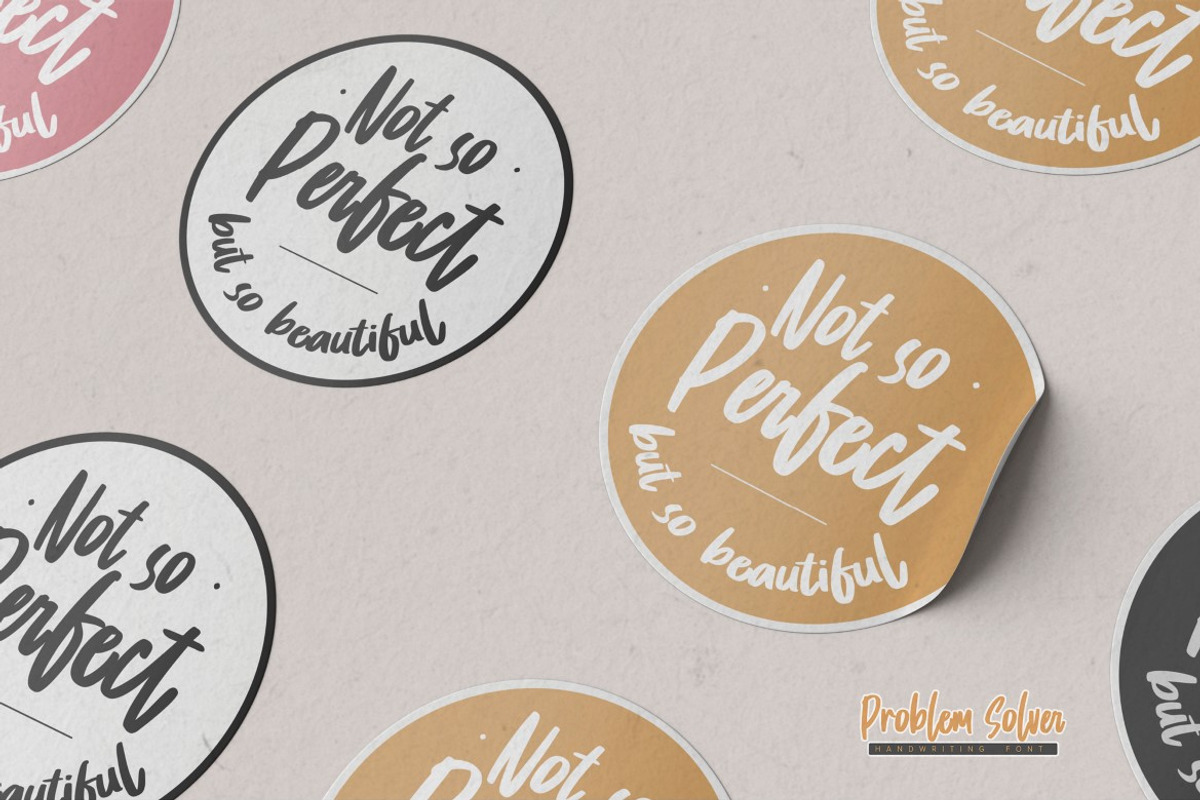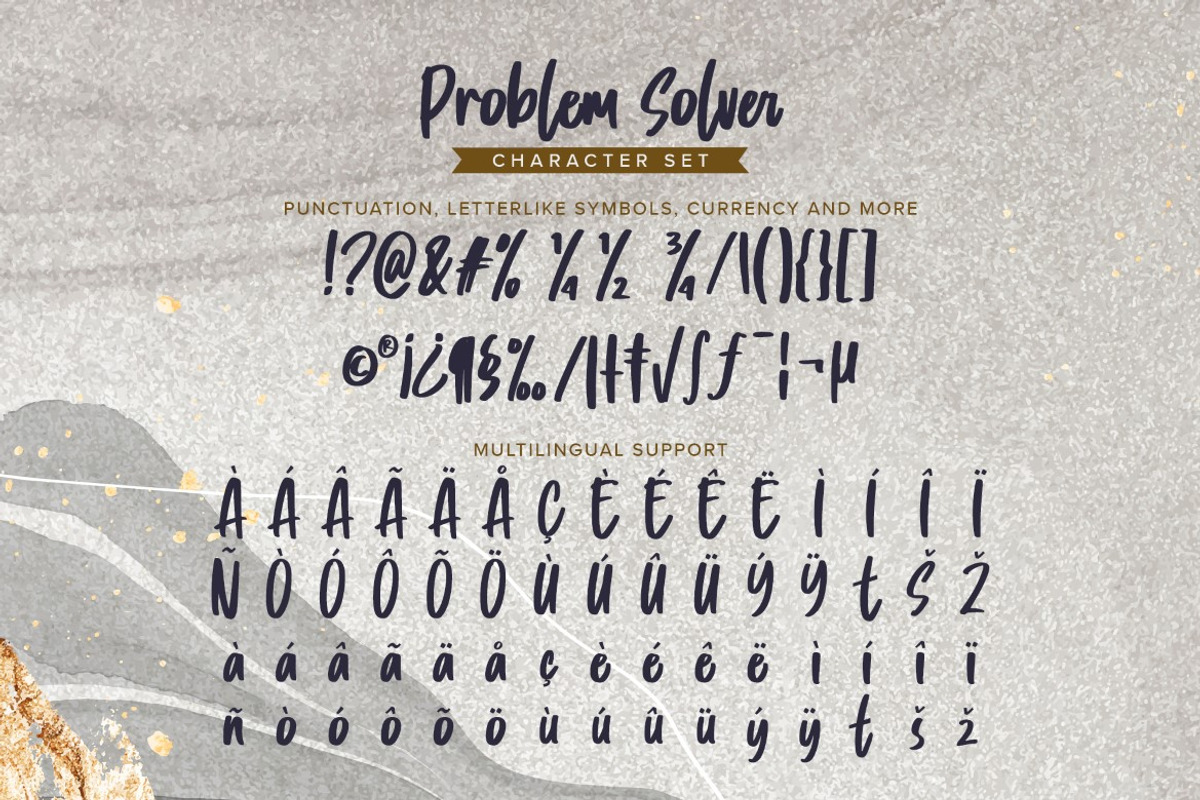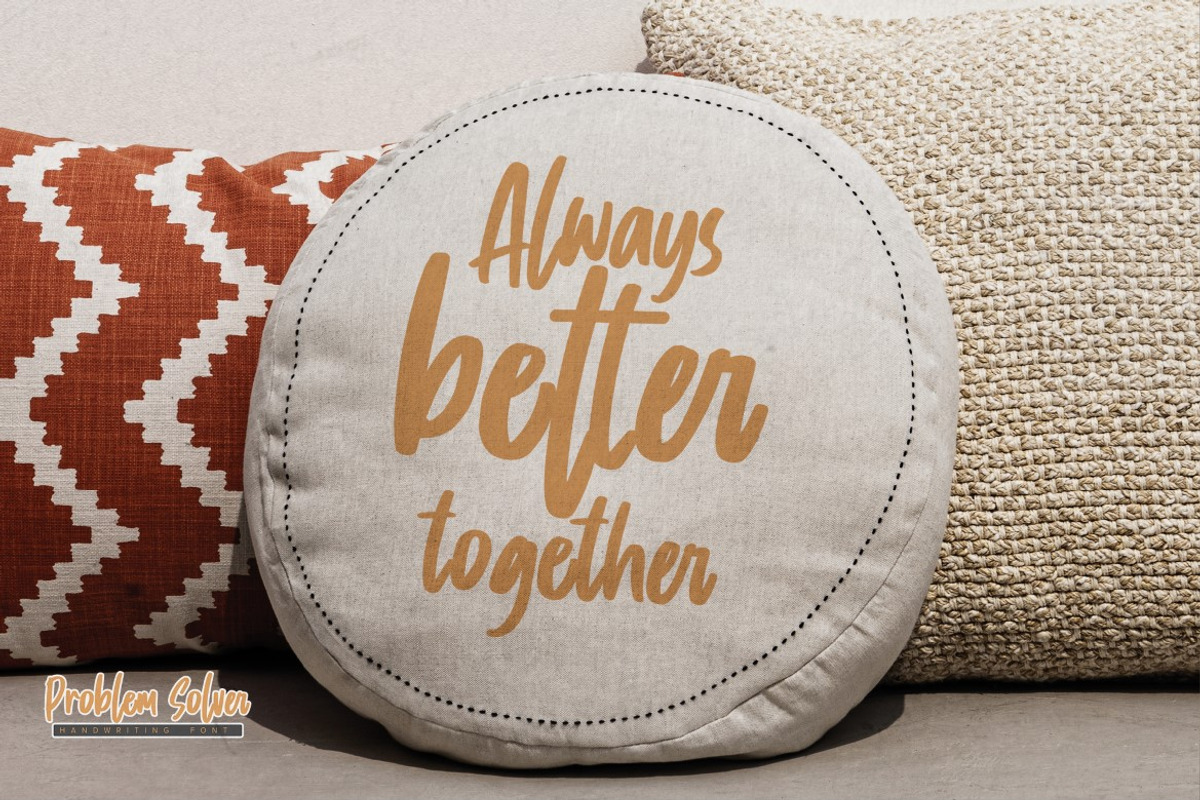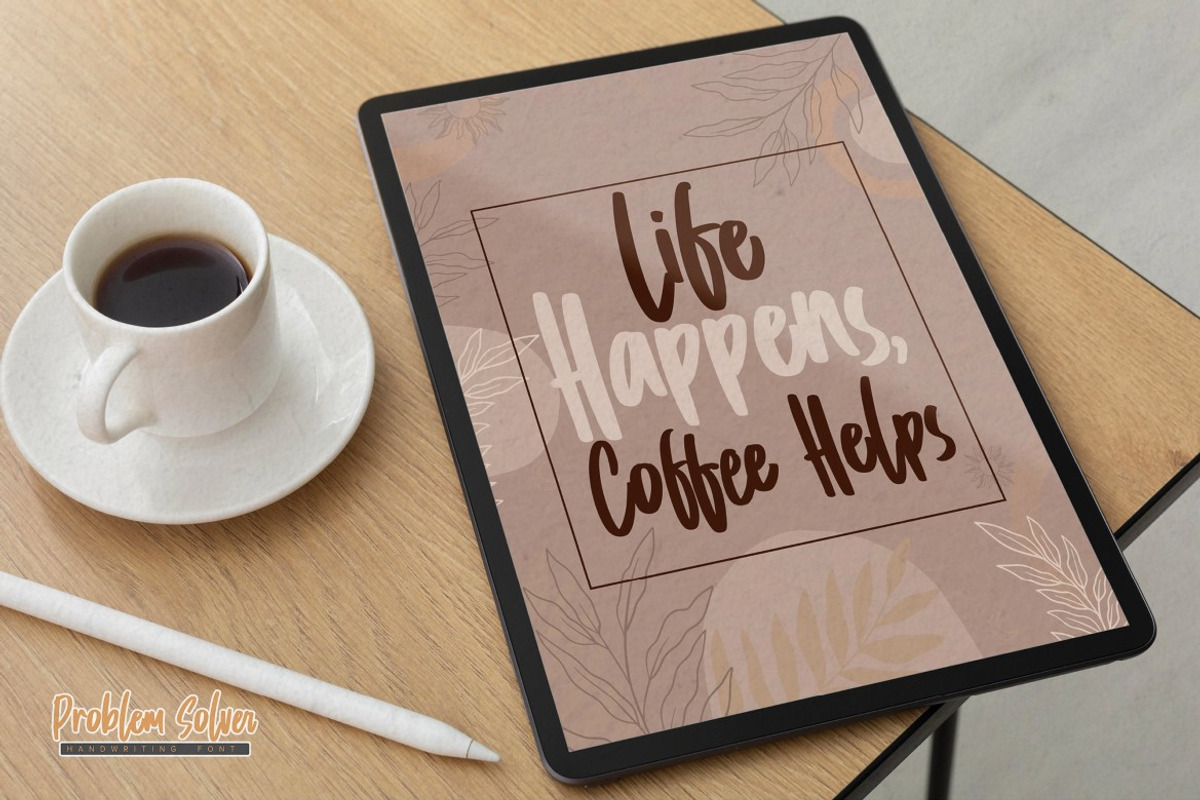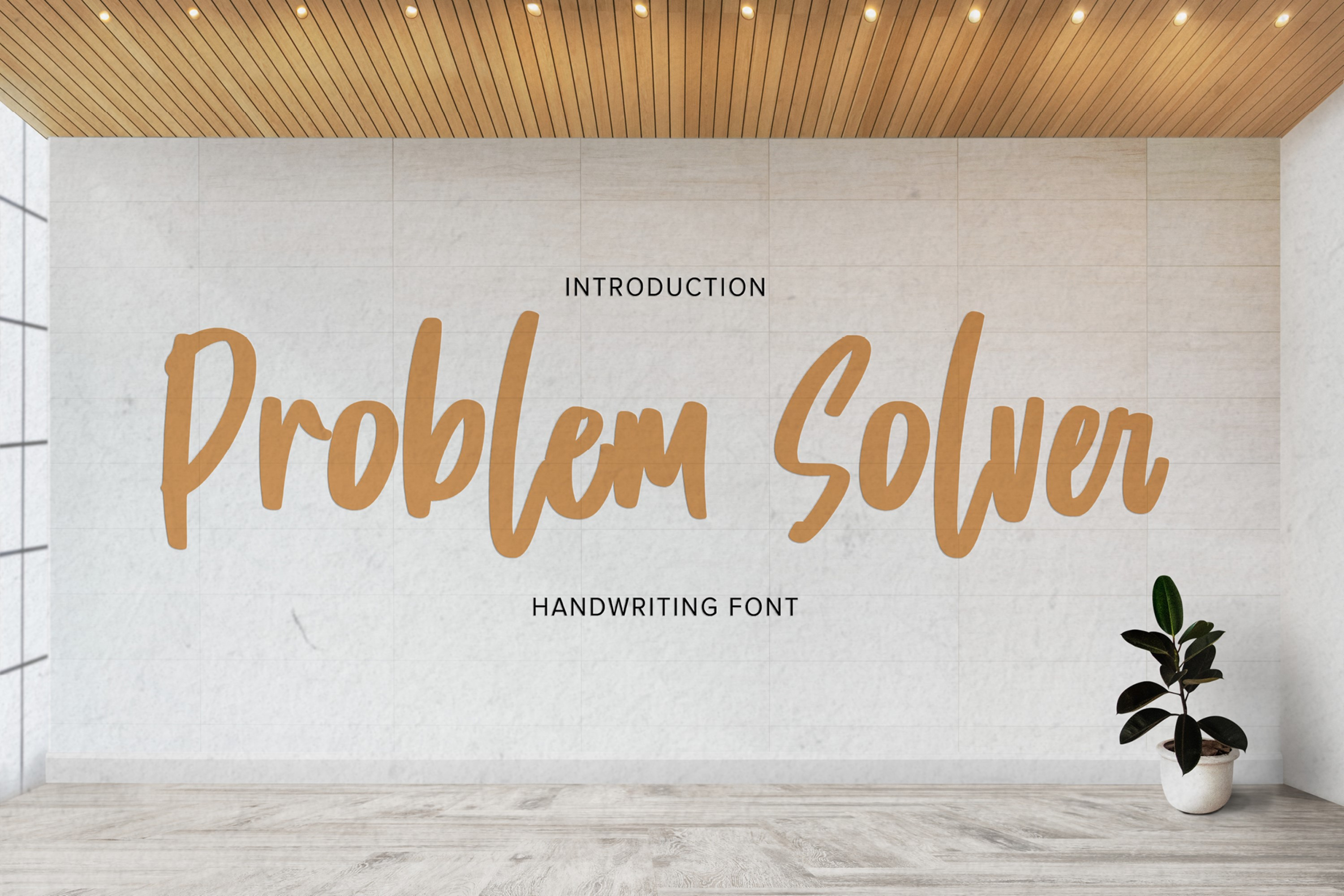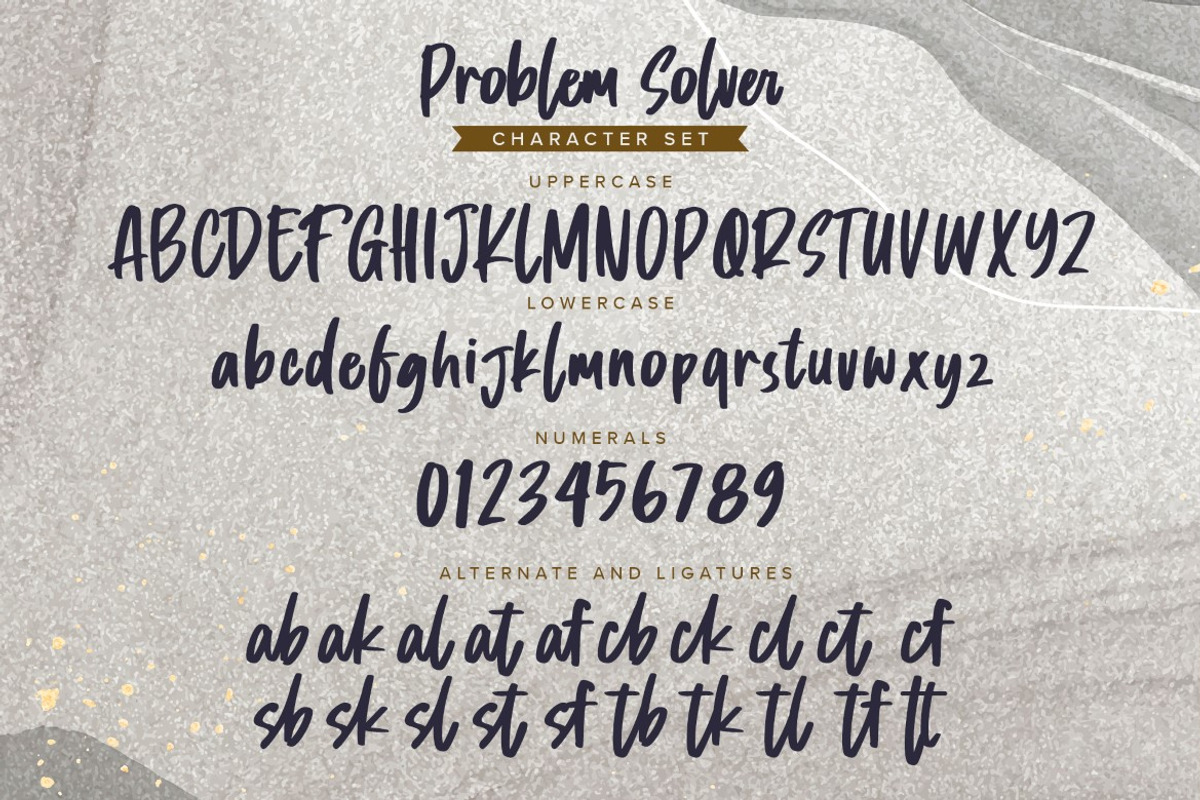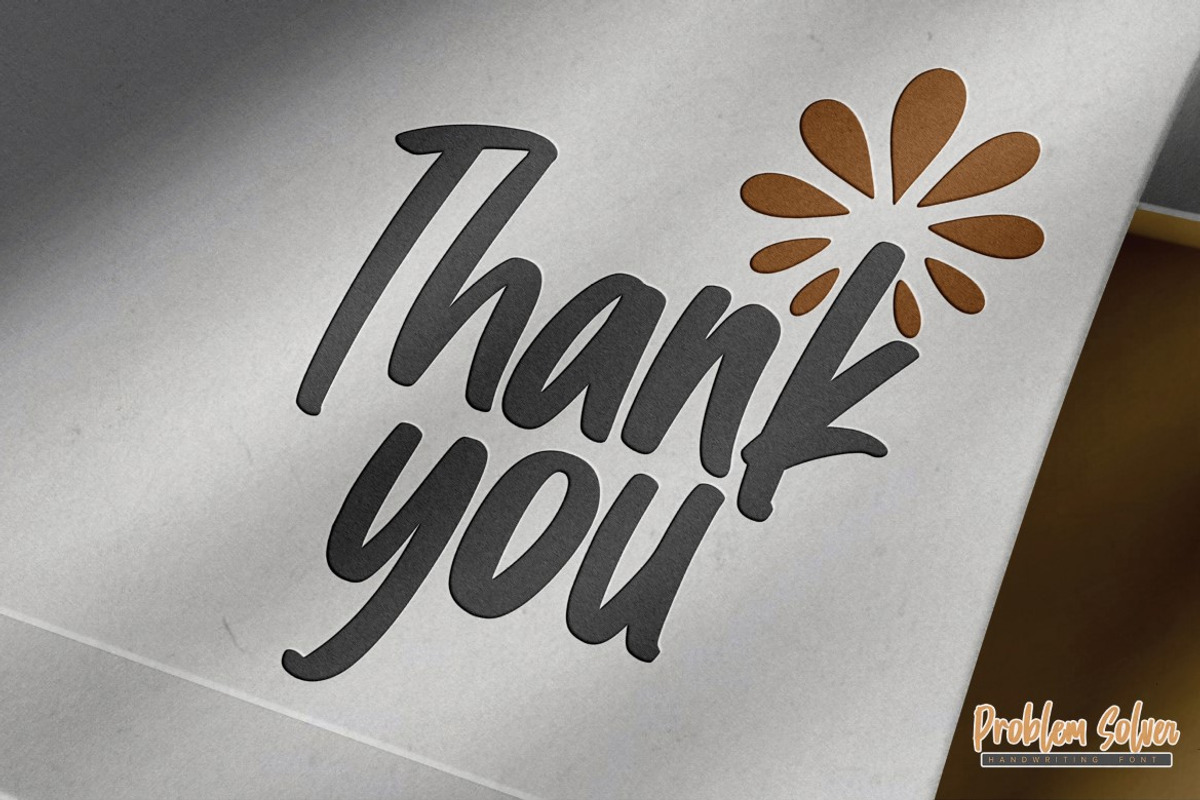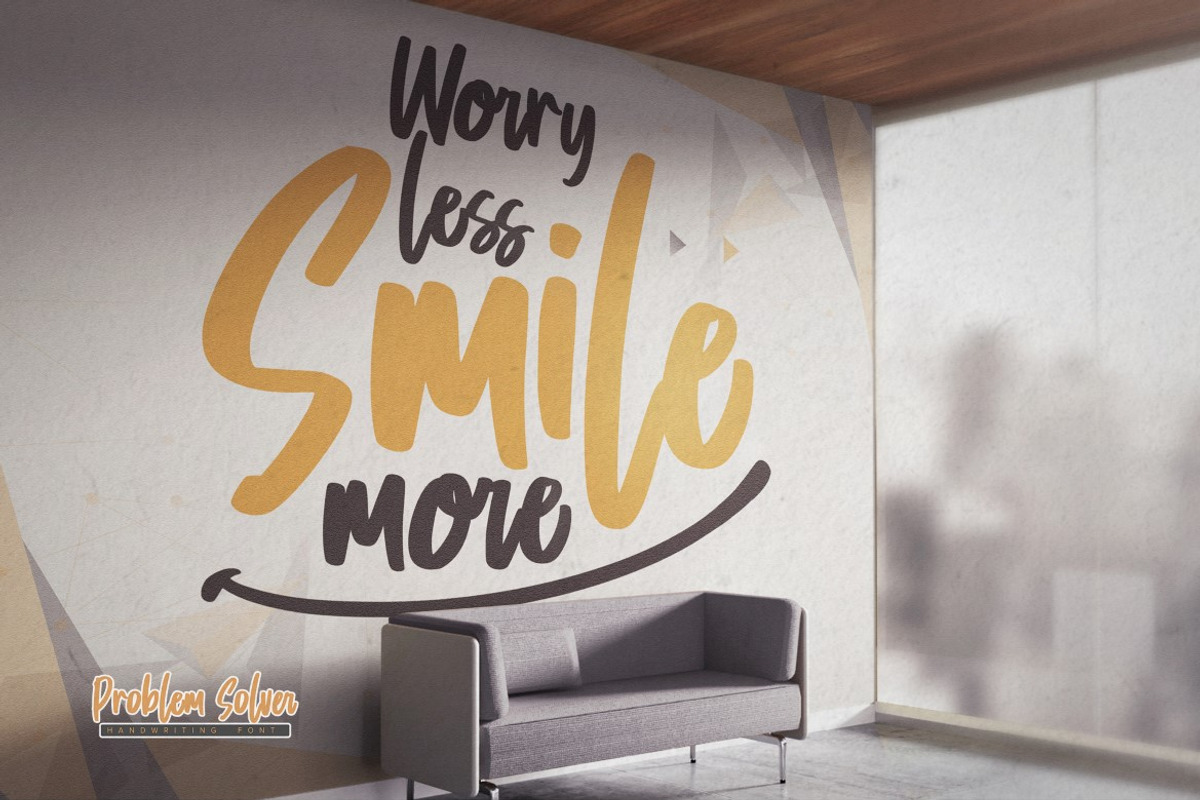
Problem Solver -Playful Display Font
Problem Solver is a Playful Display Font that will make your designs look modern, unique and fun. It’s perfect for labels, quotes, posters, DIY projects, branding, packaging, greeting cards, websites, photography overlays, signs, window art, scrapbooking, tags and so much more!